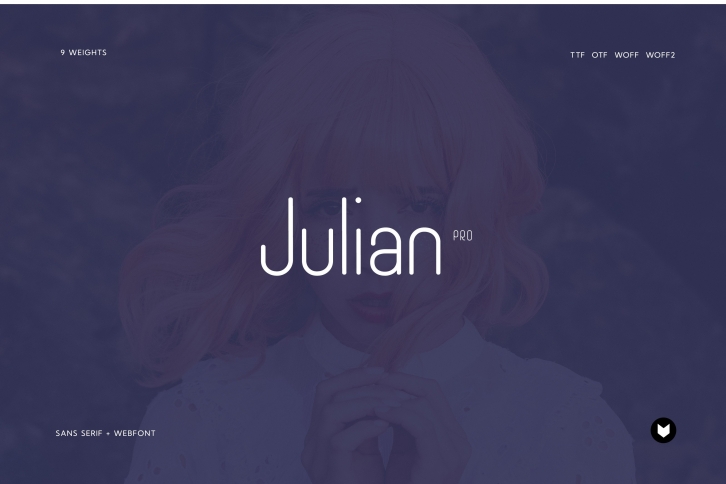
Julian Pro is a clean, simple and adaptable display font. It can easily be matched to an incredibly large set of projects, so add it to your creative ideas and notice how it makes them stand out!